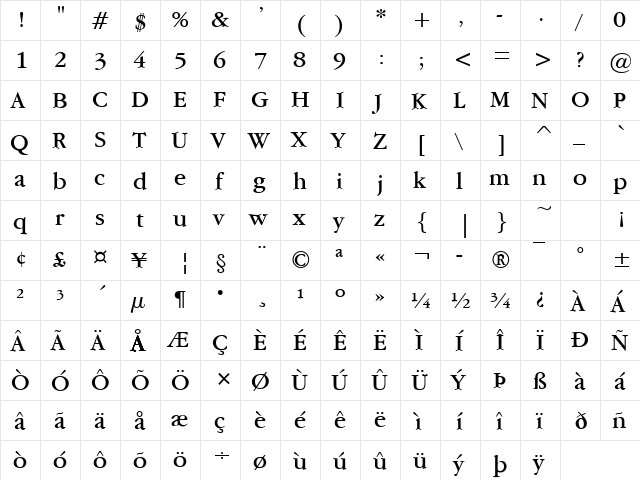
Garamand Regular
Design Context for Garamand Typeface
Garamand offers clean, dependable letterforms without strong stylistic allegiance, making it a practical choice for designers who need flexibility.
Pro Tip: Use Garamand in both headline and body roles to test its range before committing to a single application.